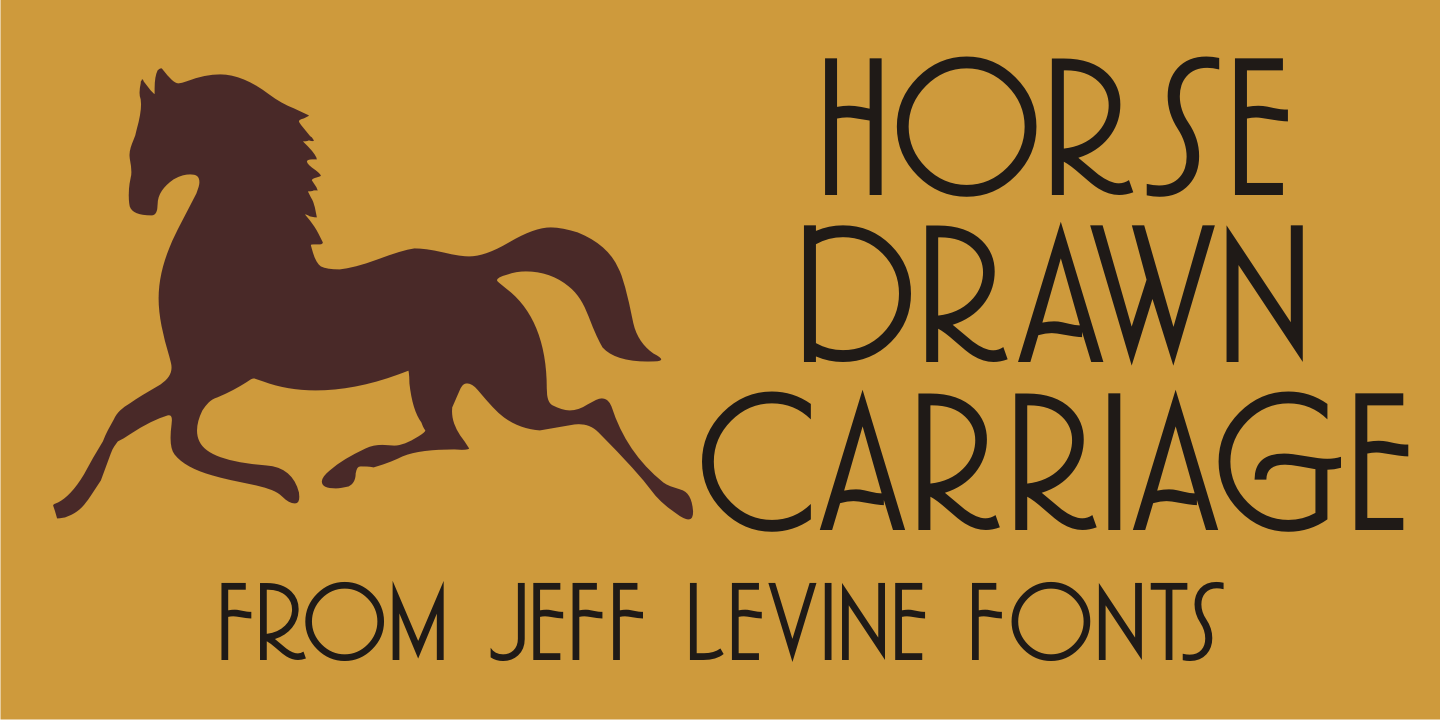
Horse Drawn Carriage
Picture if you will, a balmy autumn evening in Manhattan during the 1930s and a well-dressed couple out on the town. They hail one of the hansom cabs located near Central Park and climb in for an old-fashioned romantic ride around the green.
Such are the type of images the stylized Art Deco hand-lettering comprising Horse Drawn Carriage JNL evokes. The inspiration for this font was the title card for a 1935 Bette Davis feature entitled 'The Girl from 10th Avenue”.
Horse Drawn Carriage JNL Regular by Jeff Levine Fonts